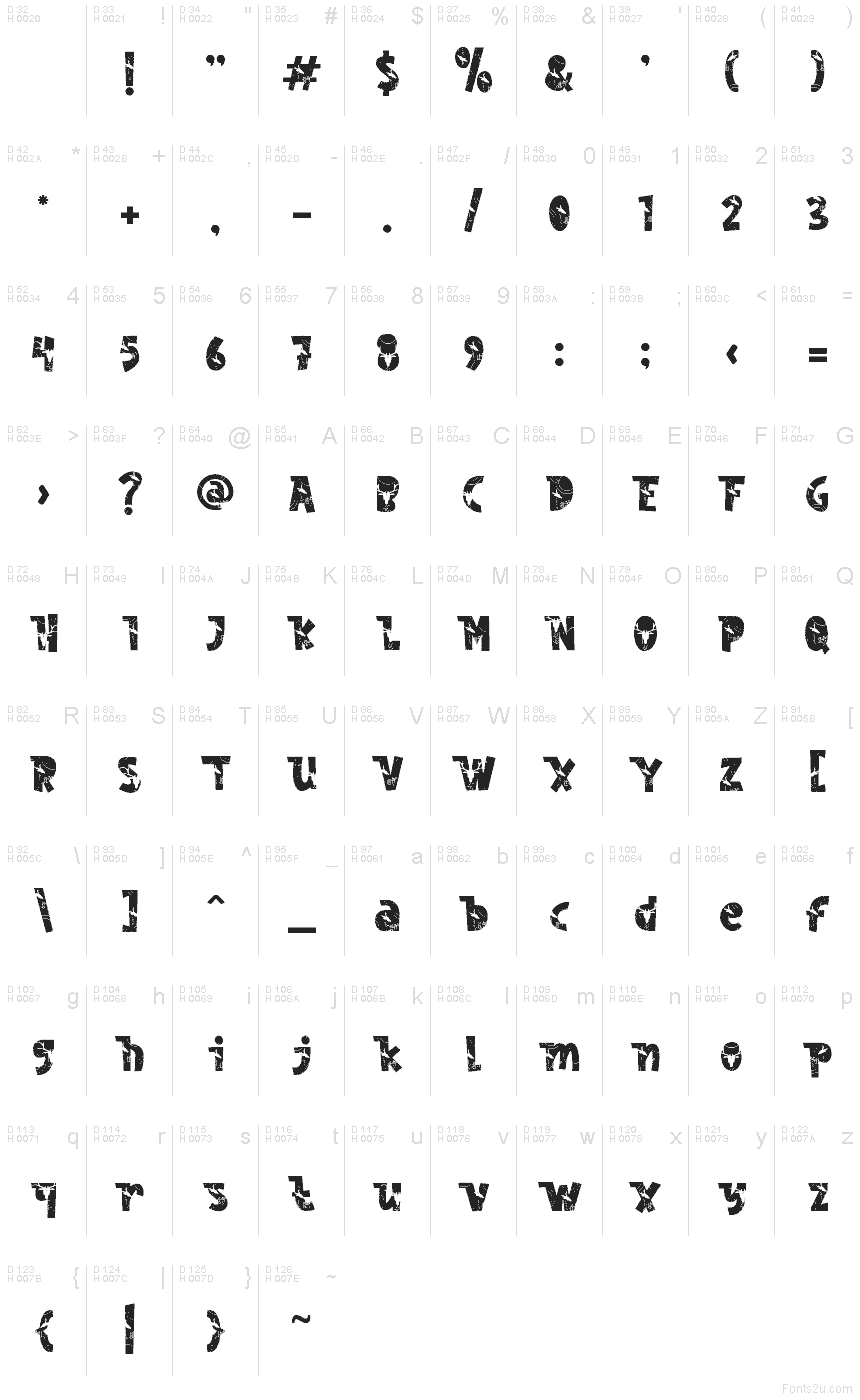
Nordic Whimsy Six
Nordic Whimsy Six font by PutraCetol Studio is a bold, decorative, display font with Nordic influence. The whimsical style mimics inscriptions found in Norse, Viking, and other ancient Scandinavian histories and legends. It has a unique visual flair that combines intricate patterns into one artistic type design.
Nordic Whimsy Six is free for artistic applications like poster designs of historical themes or movie events related to Norsemen. Some more use cases: branding designs, book covers (fantasy & literature), logos of gaming firms or sports jerseys and merchandise items where creativity and uniqueness are prioritized over legibility; especially at large sizes!